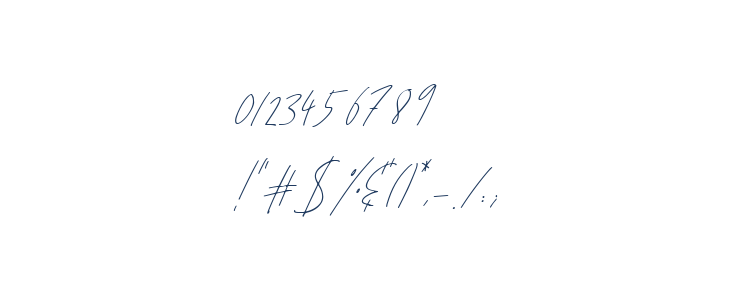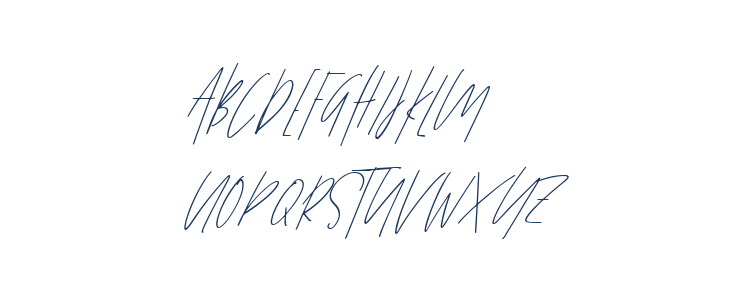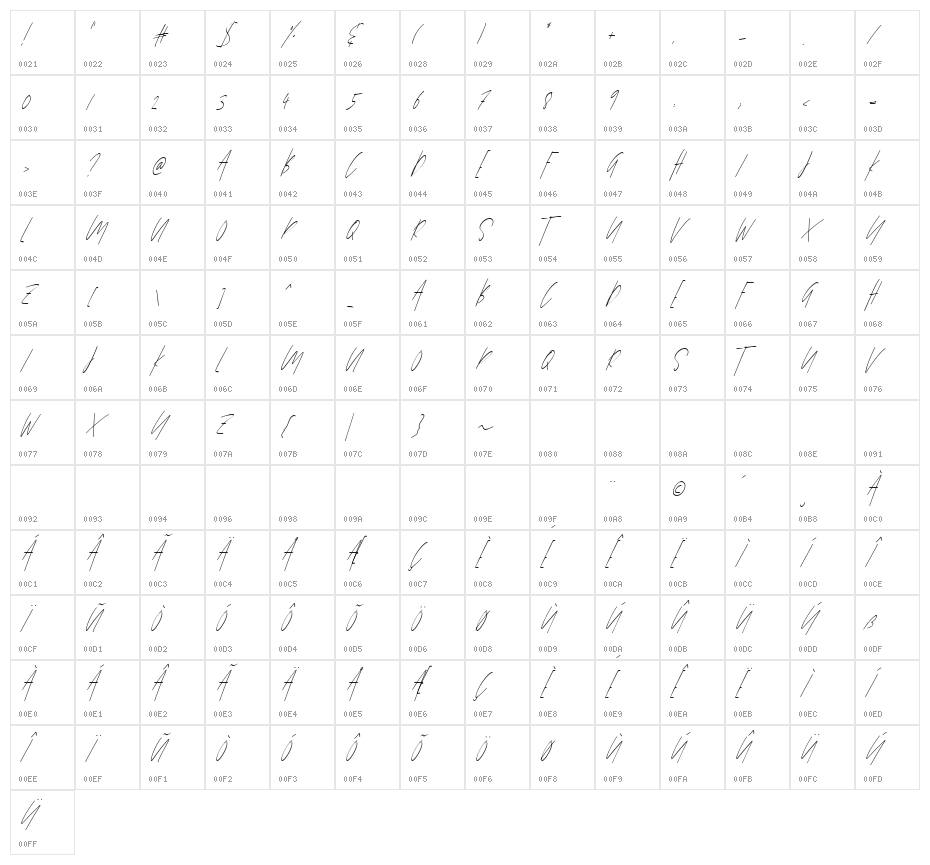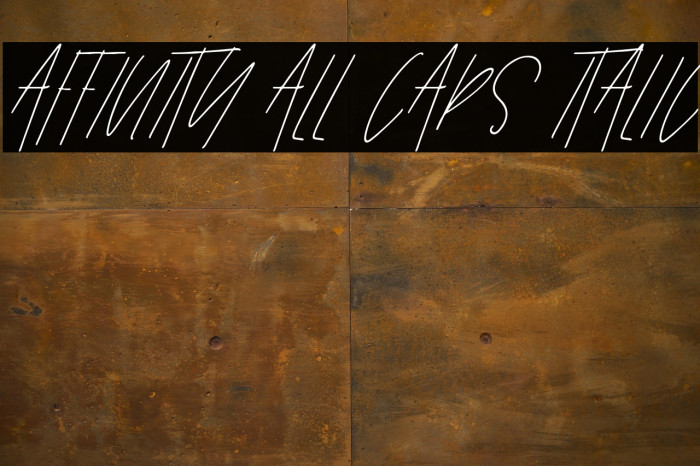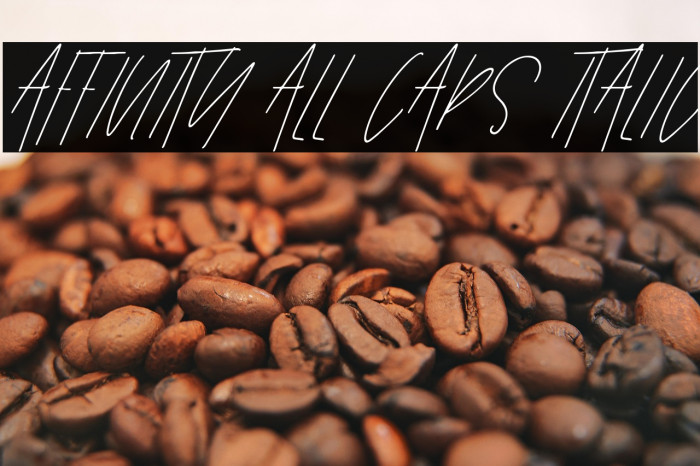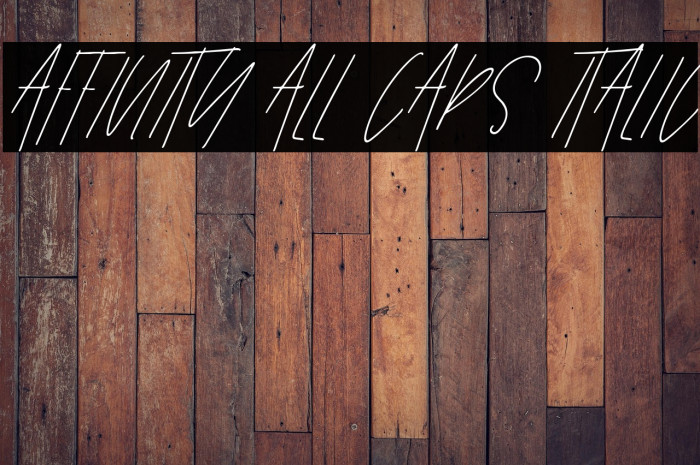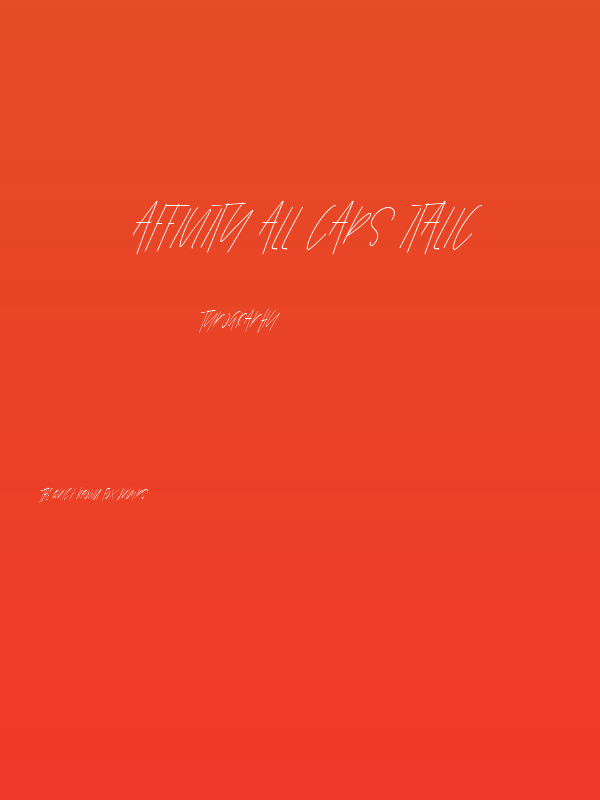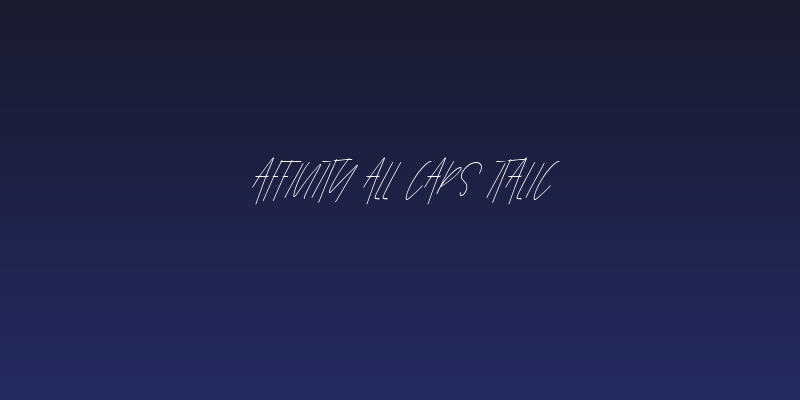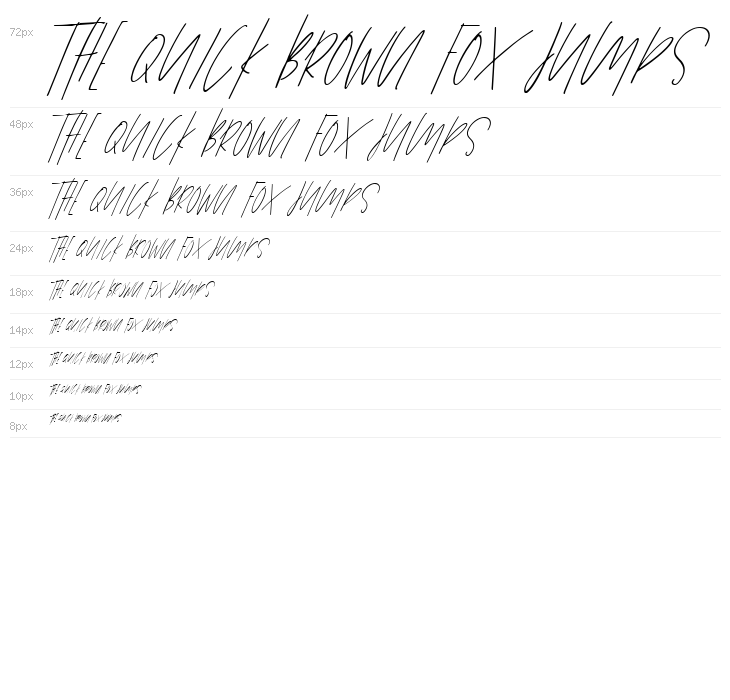
Affinity All Caps Italic Font
Affinity All Caps Italic Description
A tall, narrow handwritten script with all uppercase letters, featuring sharp angles and a pronounced rightward slant. The strokes are thin and consistent, giving a dynamic and energetic appearance.
| Overall Style | Modern, Expressive, Decorative |
| Use Case | Headlines, Logos, Posters, Artistic projects |
| Proposed Projects | Fashion branding, modern posters, album covers, editorial headlines, expressive quotes. |